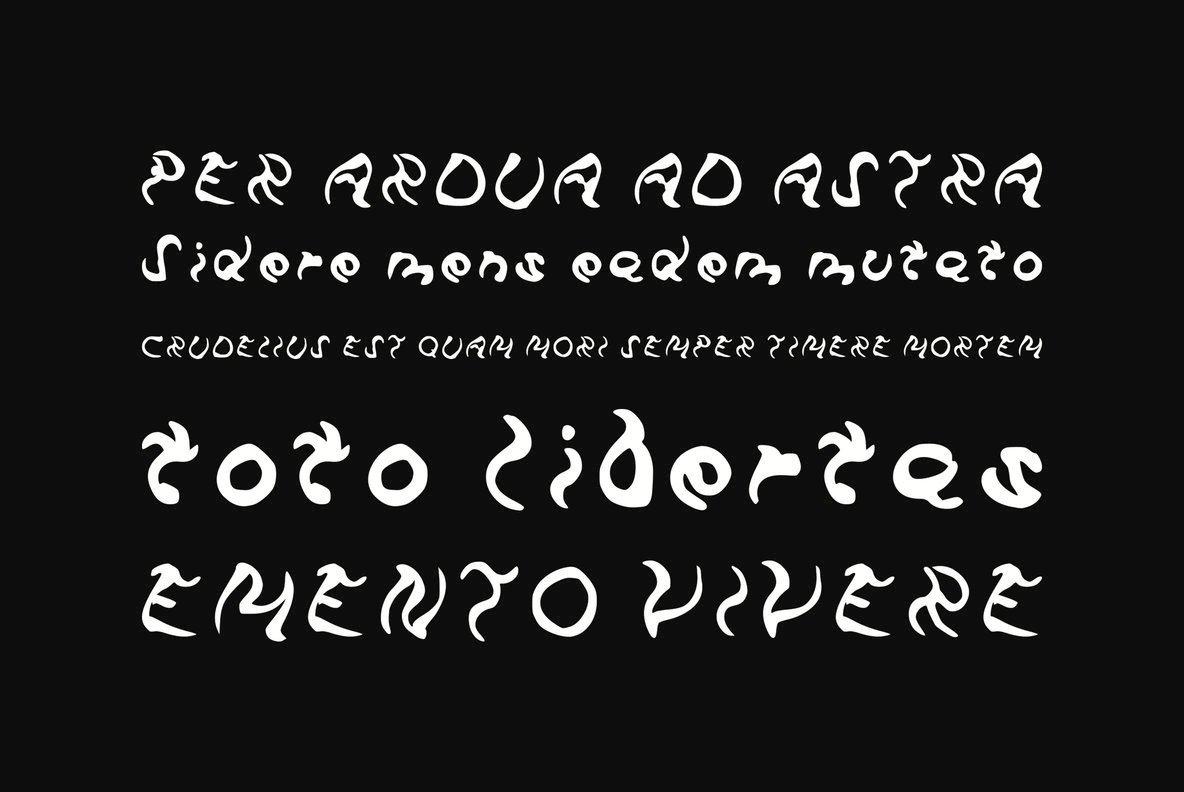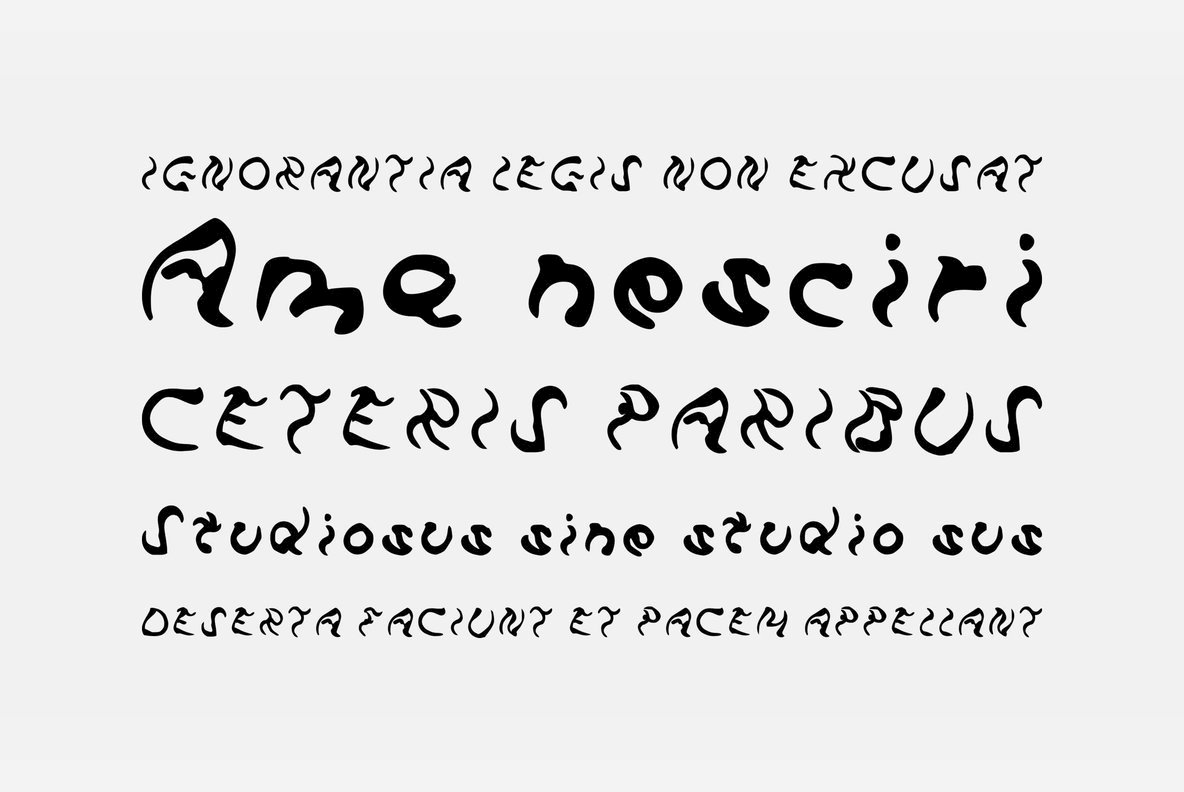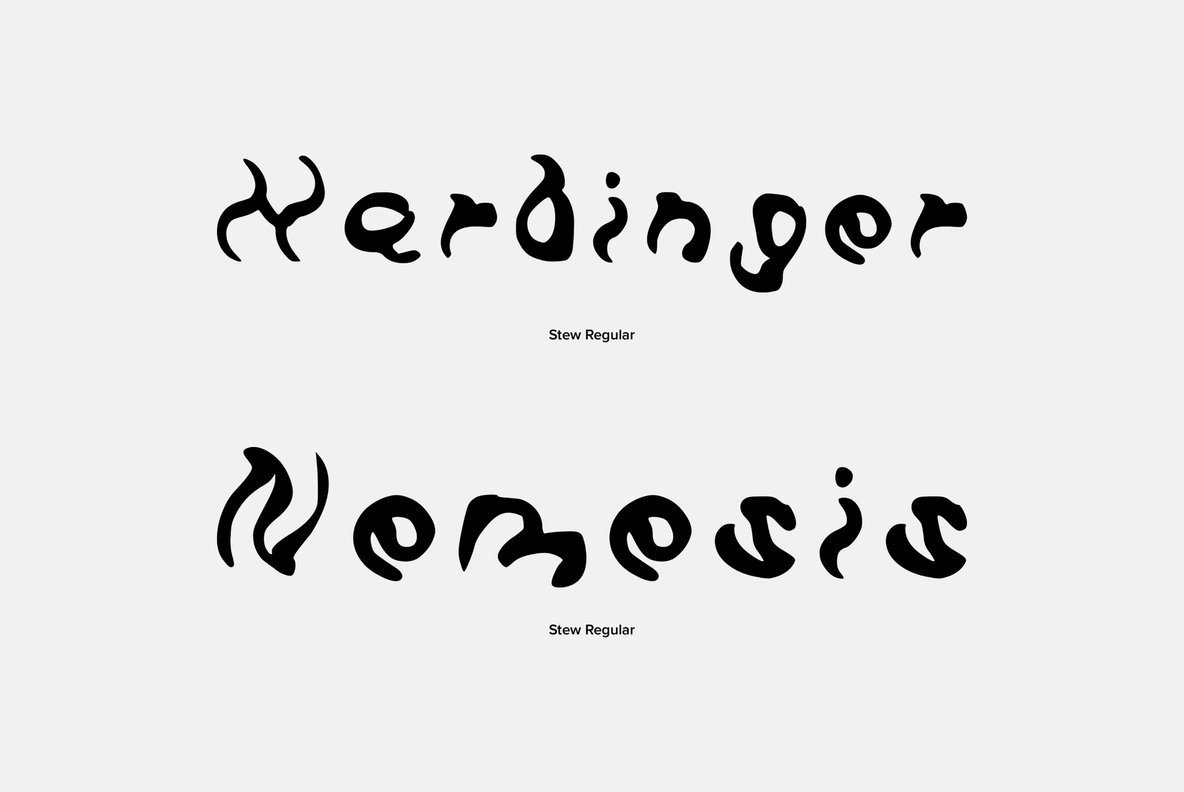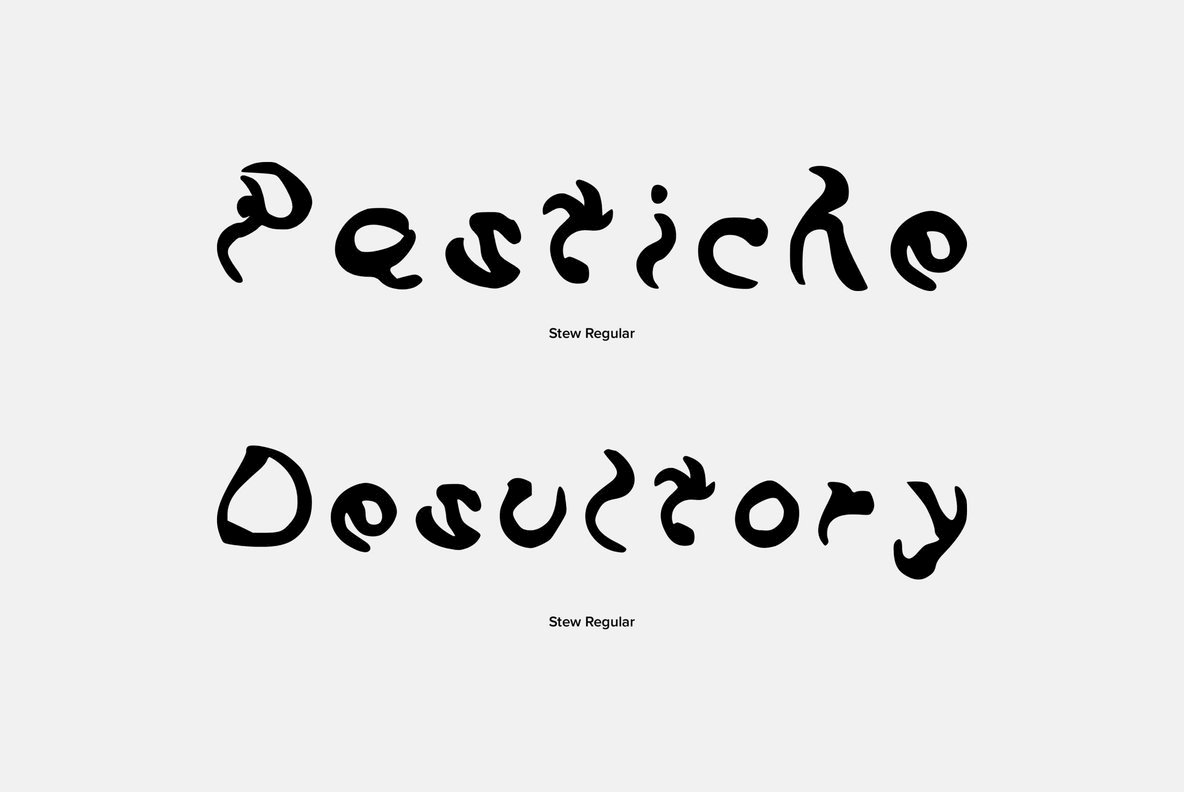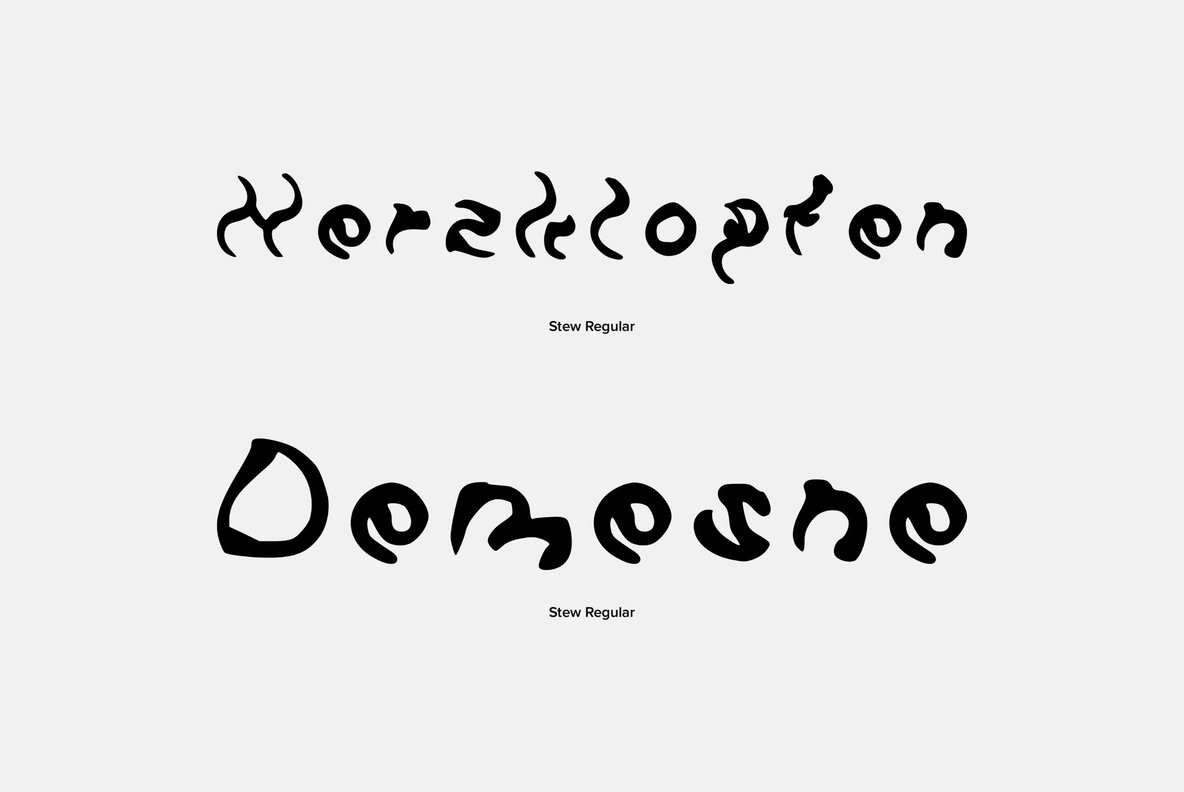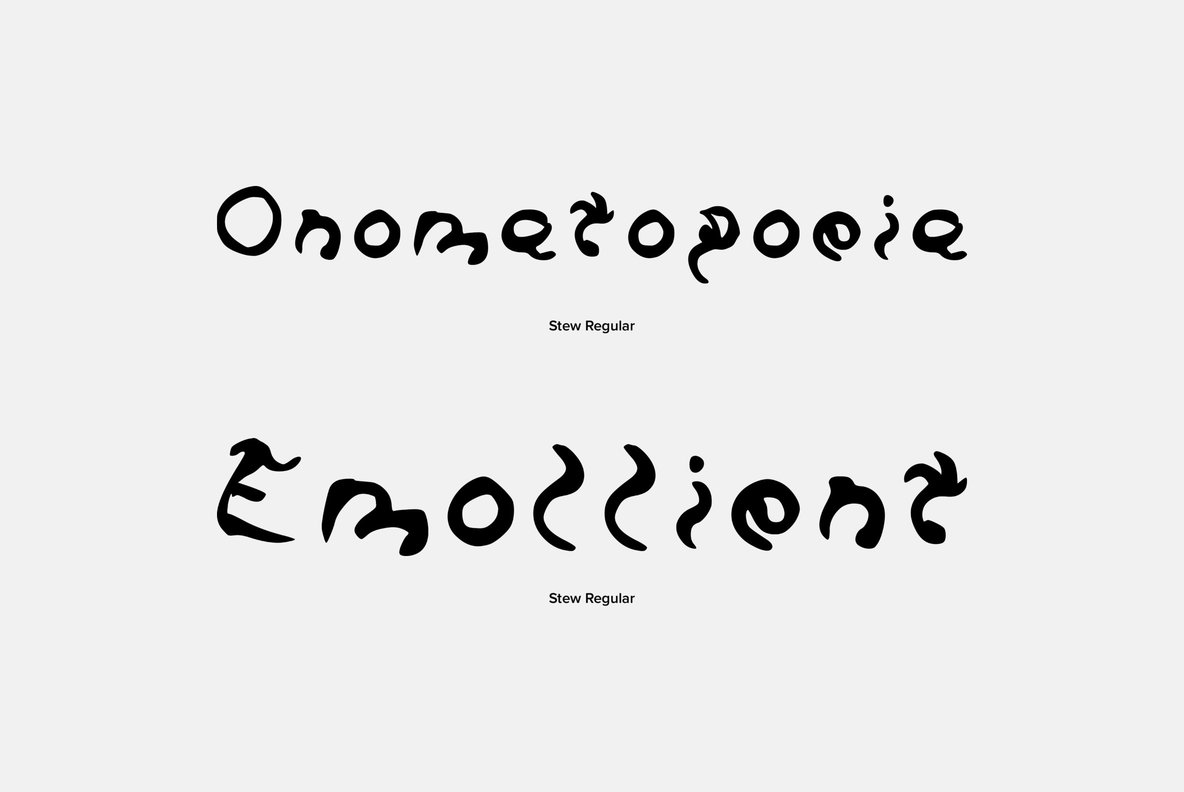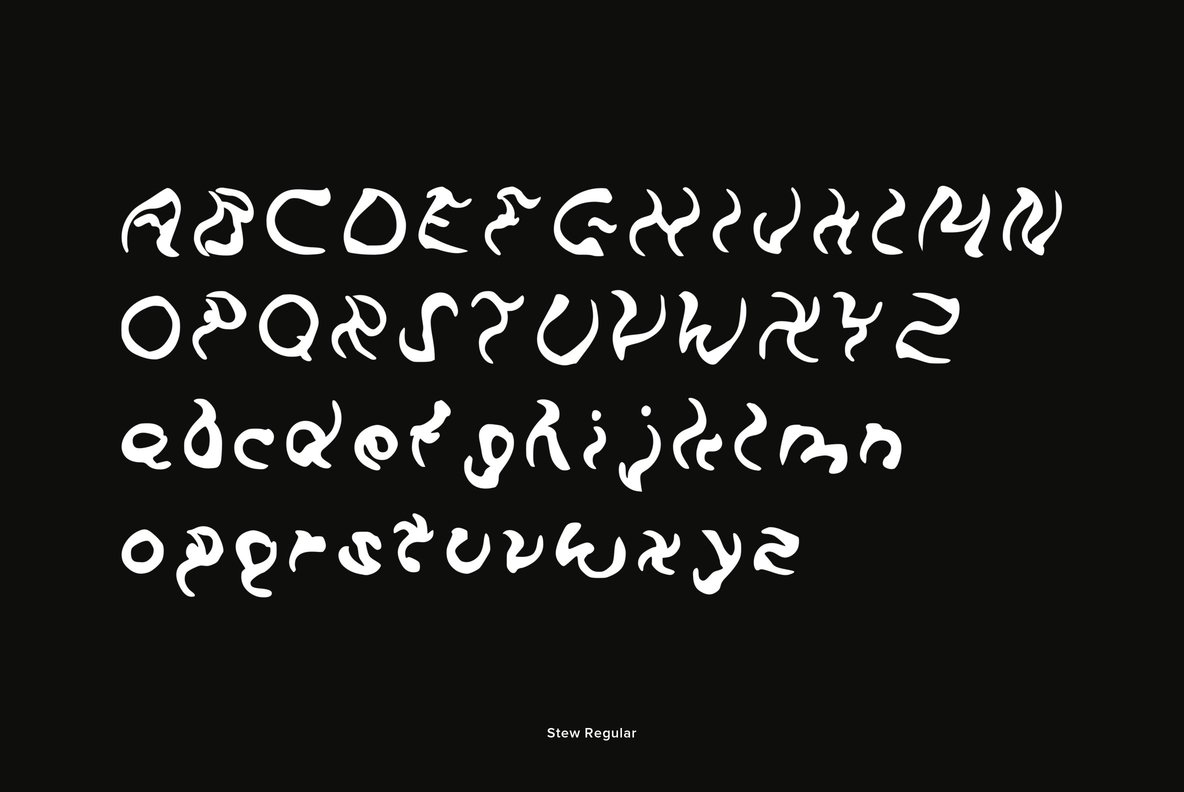
Stew Font
Bold wavy font straight from the cooking pot! So good it looks good enough to eat as the font has a gooey, hot fluid like style. Use in all good to eat designs or if you looking for something a bit different for mind bending designs we think this one will decently do the job. Psychedelic!